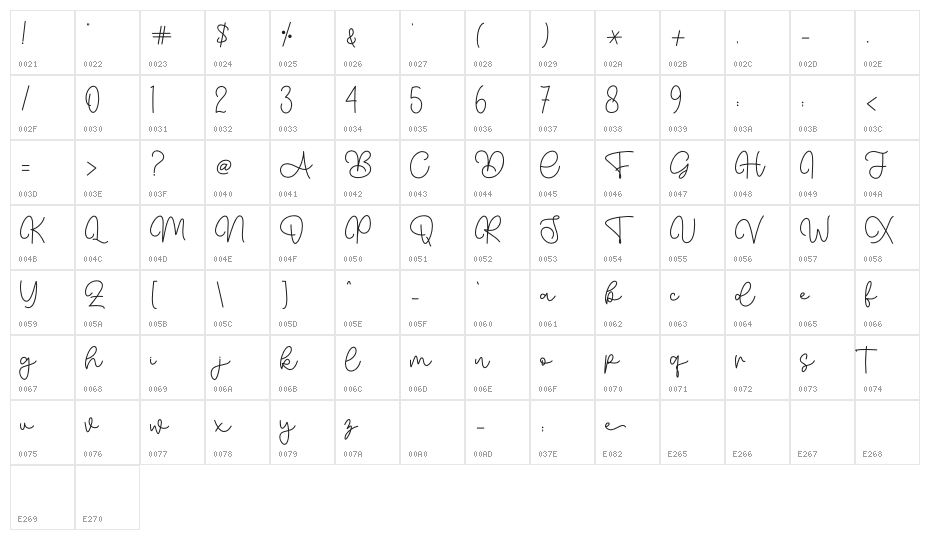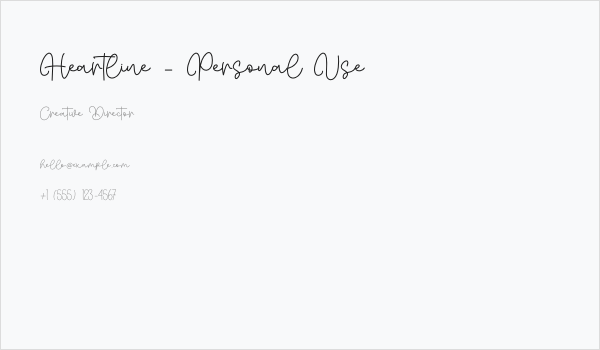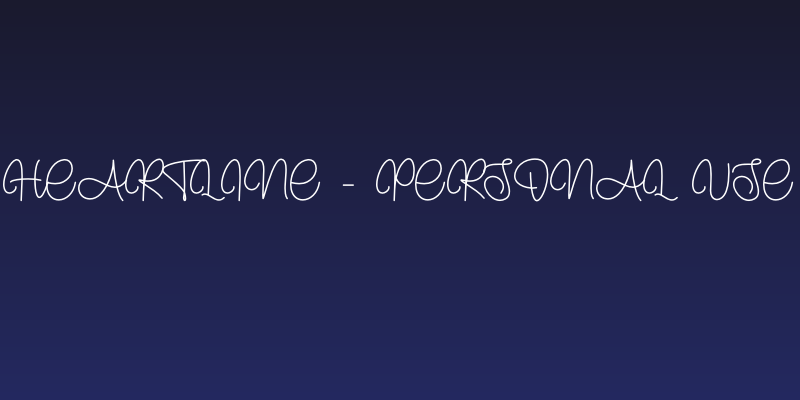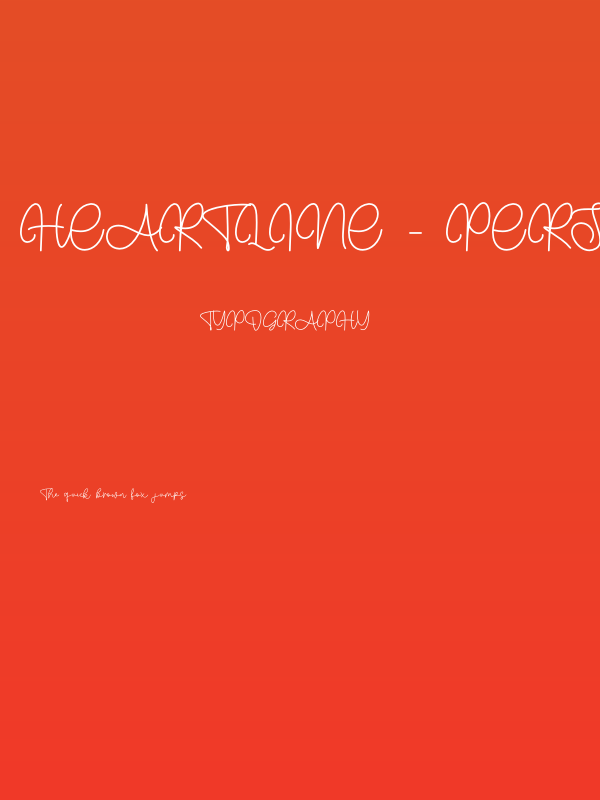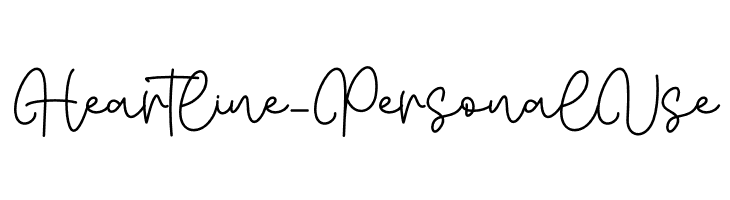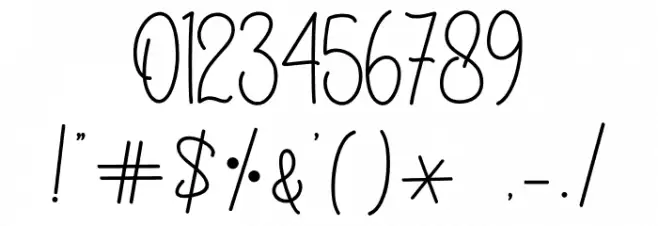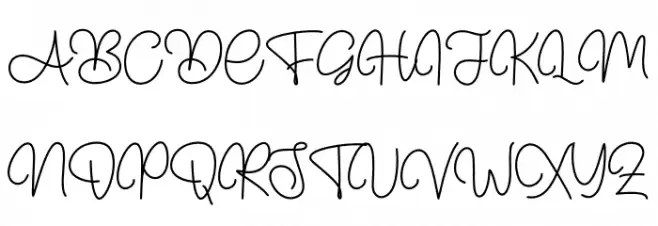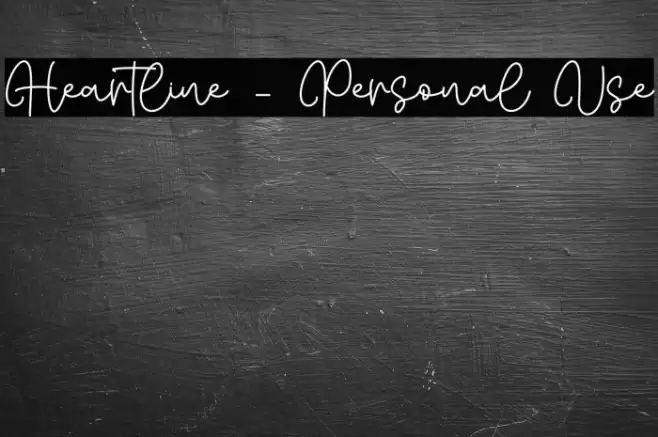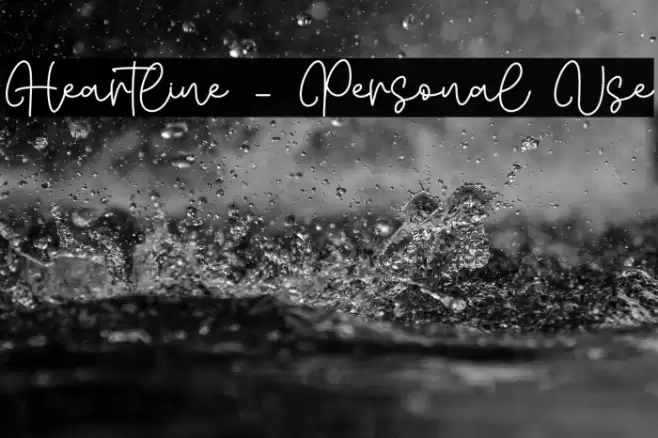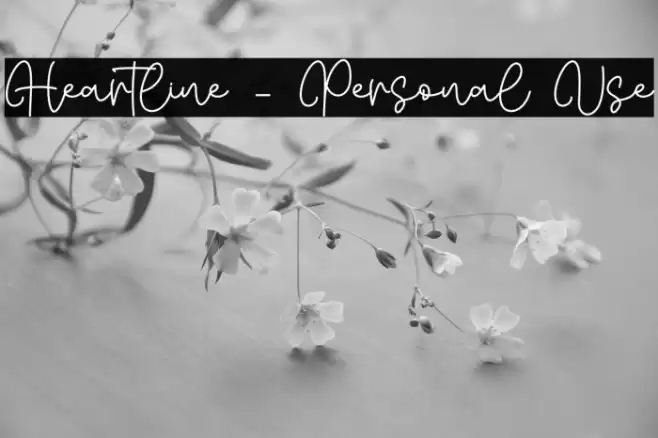
Heartline - Personal Use Font
Heartline - Personal Use Description
A playful, flowing handwritten script with connected letters and a casual, personal feel. The strokes are consistent in thickness, with rounded forms and generous loops, especially in ascenders and descenders.
| Overall Style | Decorative, Casual, Playful |
| Use Case | Logos, Headlines, Invitations, Social Media |
| Proposed Projects | Greeting cards, invitations, personal branding, social media graphics, quotes. |